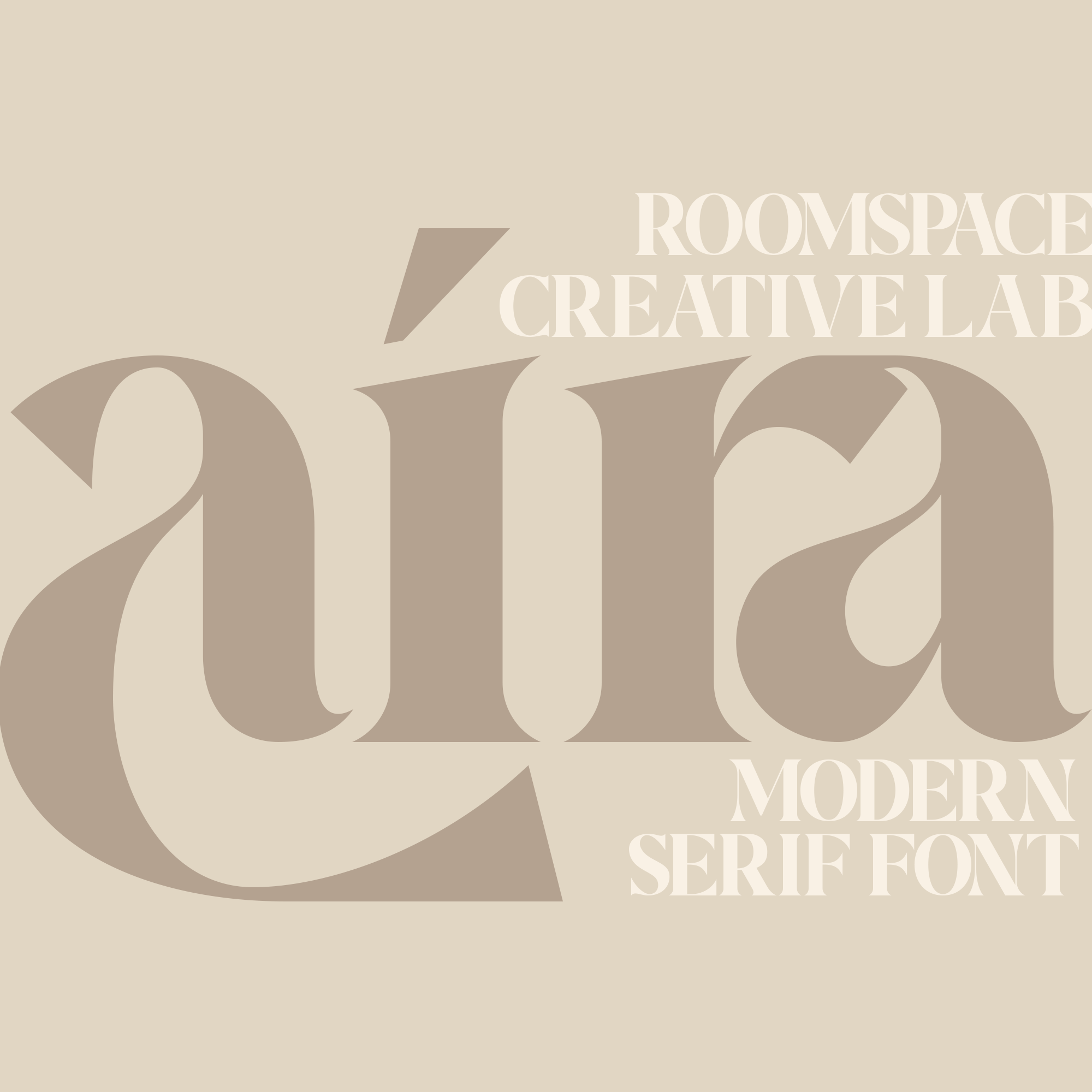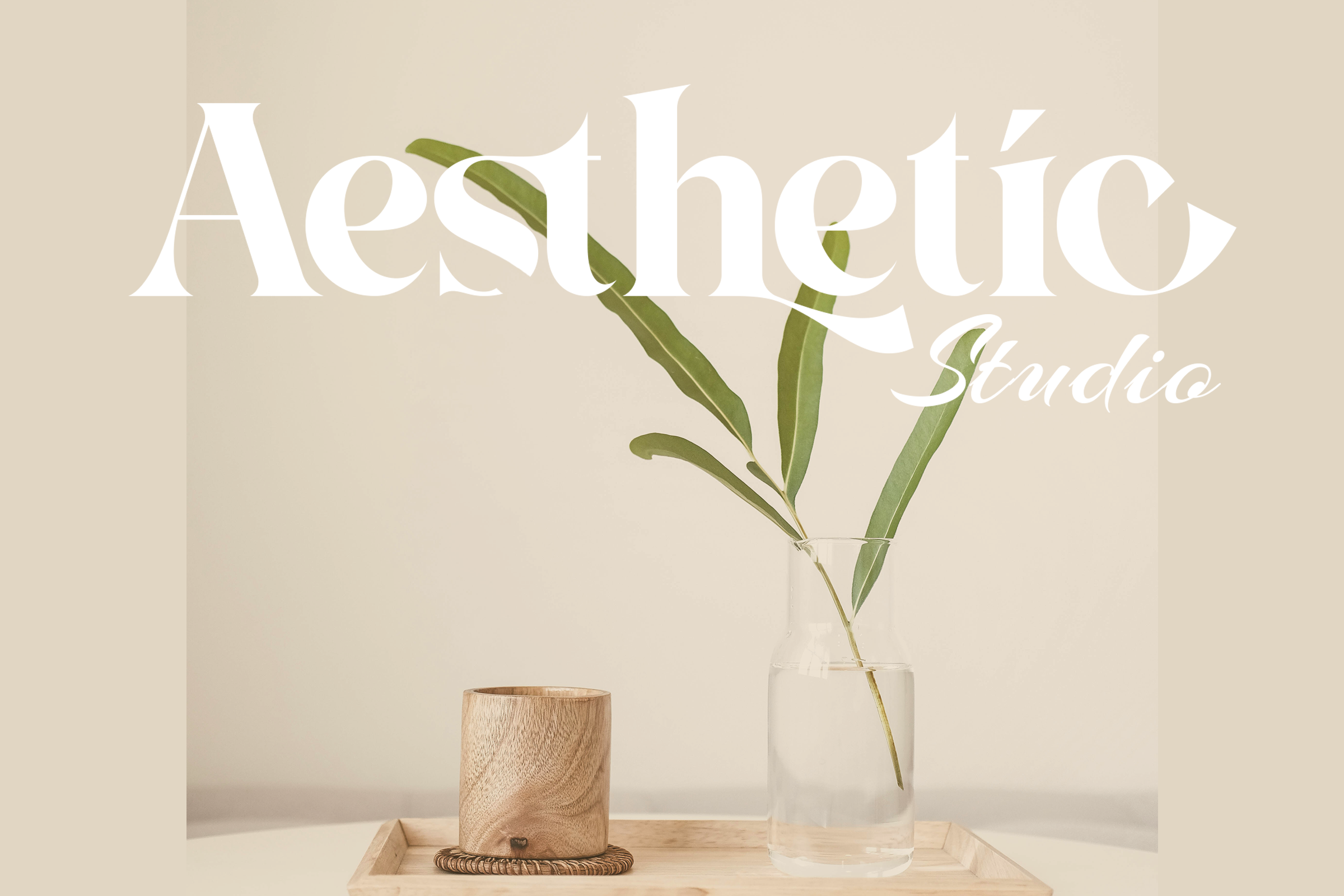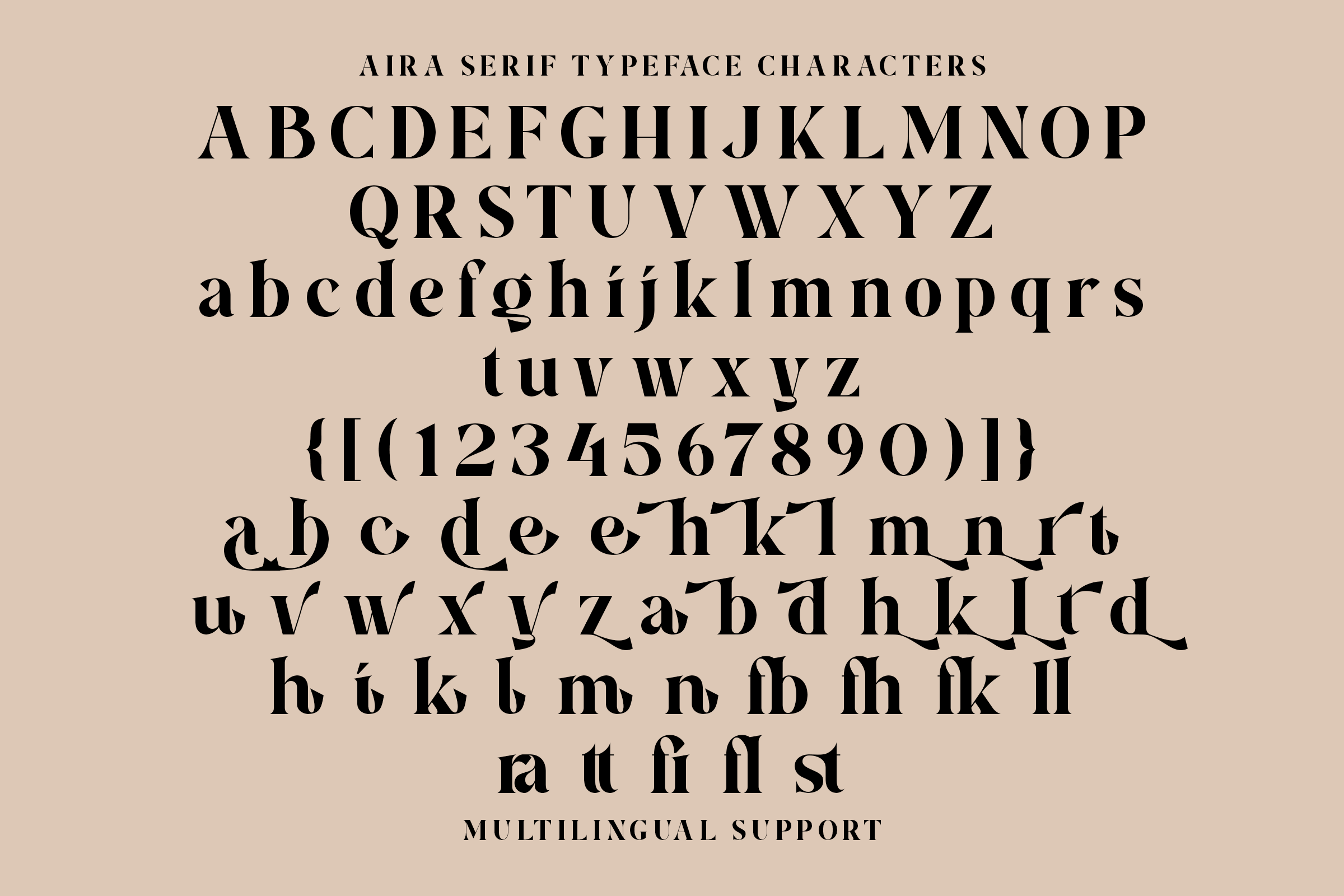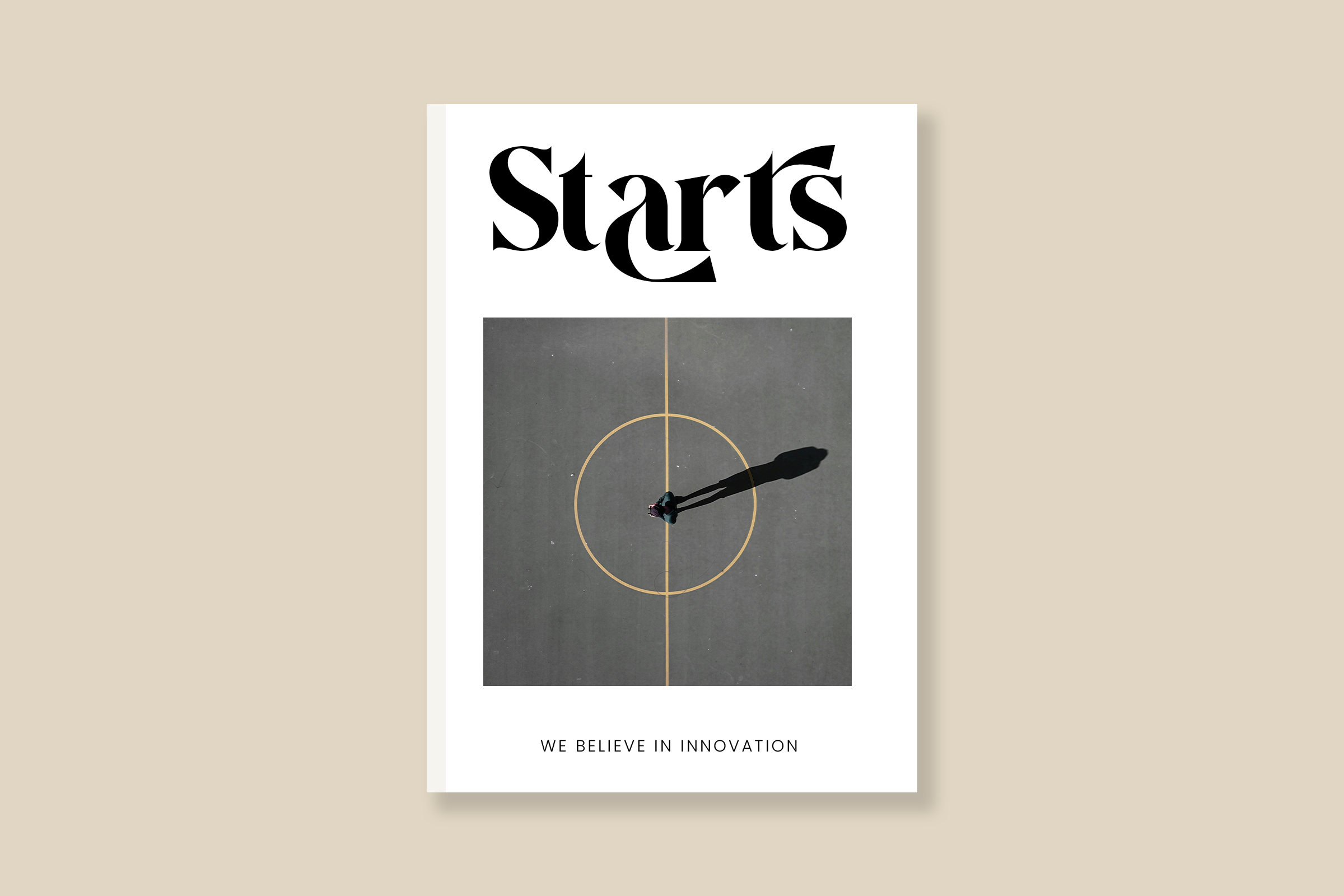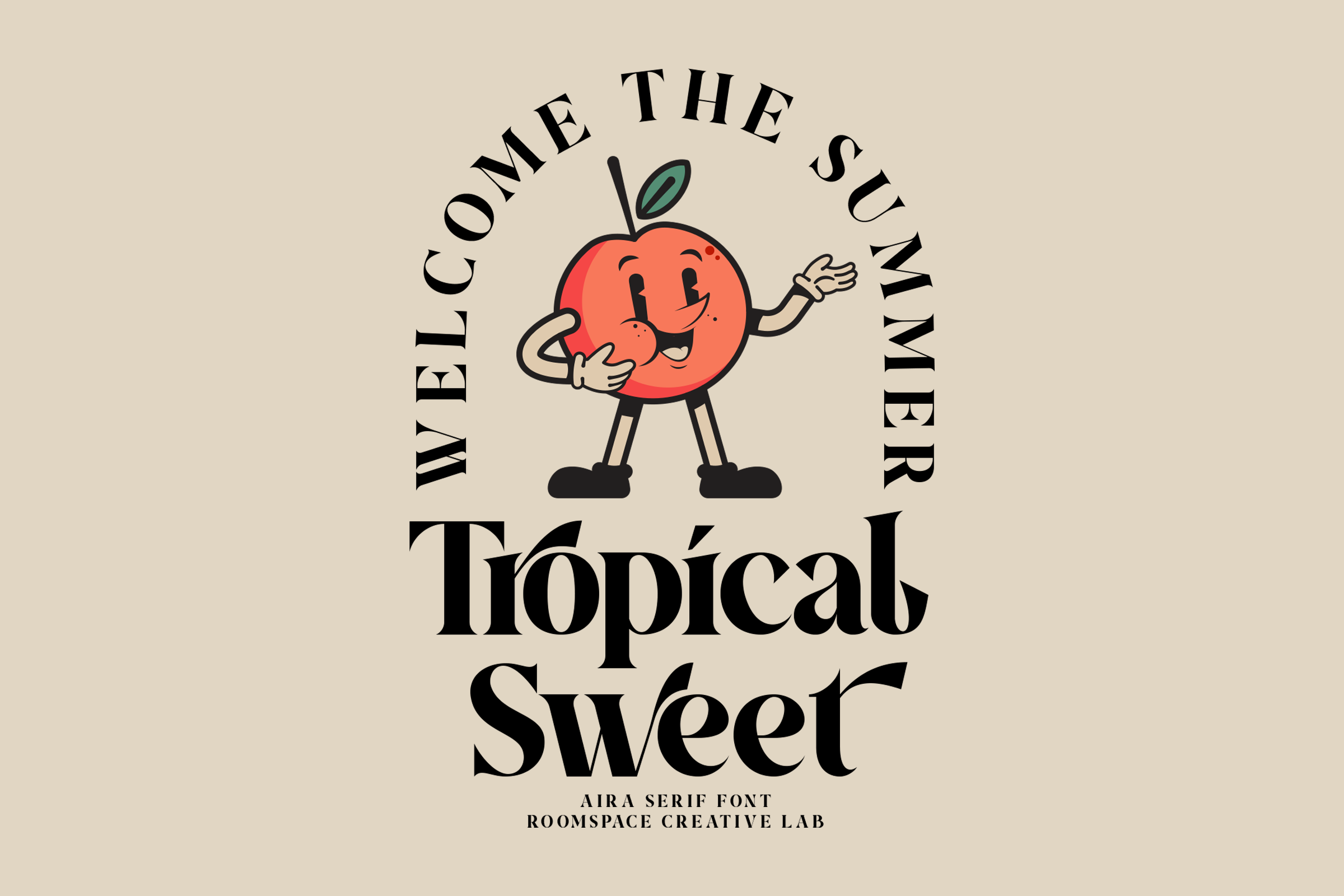
Aira – Modern Luxury Serif Font
Aira is a modern luxury serif font designed to exude confidence, elegance, and timeless sophistication. With its bold contrast between thick and thin strokes, Aira captures the essence of classic editorial typography while staying fresh and contemporary. Perfect for brands that aim to make a lasting impression, Aira balances femininity with strength and precision. Every curve and serif in Aira is thoughtfully crafted to create visual harmony and readability. Its high contrast design makes it ideal for striking headlines, refined logos, and magazine layouts. The font includes uppercase, lowercase, punctuation, and multilingual support, offering smooth kerning and flexible scalability for both digital and print use. Whether you’re designing for a fashion label, luxury boutique, beauty brand, or lifestyle publication, Aira delivers an effortlessly stylish presence. Elevate your visuals with this elegant serif and let your brand speak in sophistication. Try Aira today and experience modern typography at its finest.
Aira is a modern luxury serif font featuring a bold contrast between thick and thin strokes, designed for readability and visual harmony. It includes uppercase, lowercase, punctuation, and multilingual support, making it suitable for both digital and print applications.